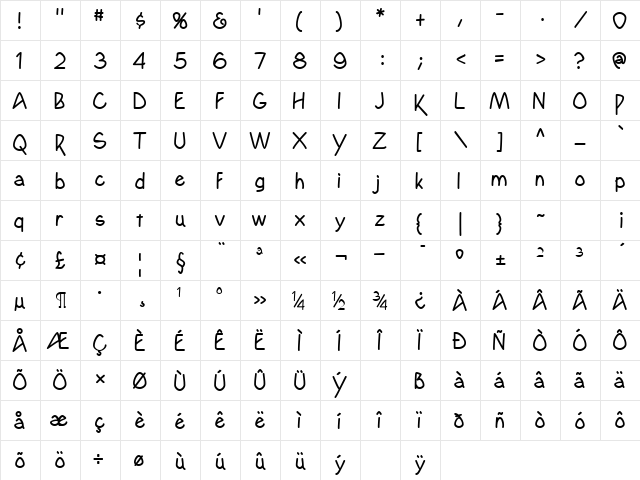
Complete YahoschMedium Regular glyph index. Displaying only characters natively supported by YahoschMedium Regular font.
YahoschMedium is a composed and adaptable typeface that performs quietly and consistently across a wide range of design contexts.